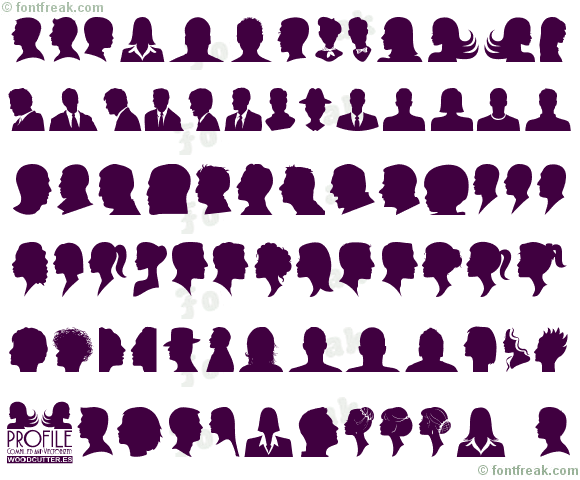
Profile
The Profile font by woodcutter Manero is a unique display typeface that marries artistic flair with functional design. This font exemplifies a decorative style, characterized by its distinct silhouettes that evoke a sense of creativity and individuality. The strokes of the Profile font are bold and structured, offering a strong visual presence while maintaining a level of elegance. The contrasting weights add depth, making it suitable for eye-catching headlines and titles. The spacing is thoughtfully designed, ensuring legibility even in larger formats.
Ideal for a variety of applications, the Profile font shines in contexts such as wedding invitations, where its artistic elements can enhance the romantic theme. It's also a fantastic choice for movie posters, bringing a unique character that can attract attention. Restaurant menus can benefit from this font’s striking appearance, helping to convey the establishment's personality. Additionally, creative projects by content creators and graphic designers will find the Profile font to be an excellent tool for branding, adding a distinctive touch to logos and promotional materials.
What sets the Profile font apart is its ability to combine artistic expression with practicality. Its unique design captures the viewer's attention while remaining functional, making it a standout choice in the realm of display typefaces. For those in search of an eye-catching typeface, the Profile font free download offers an opportunity to infuse creativity into any project.